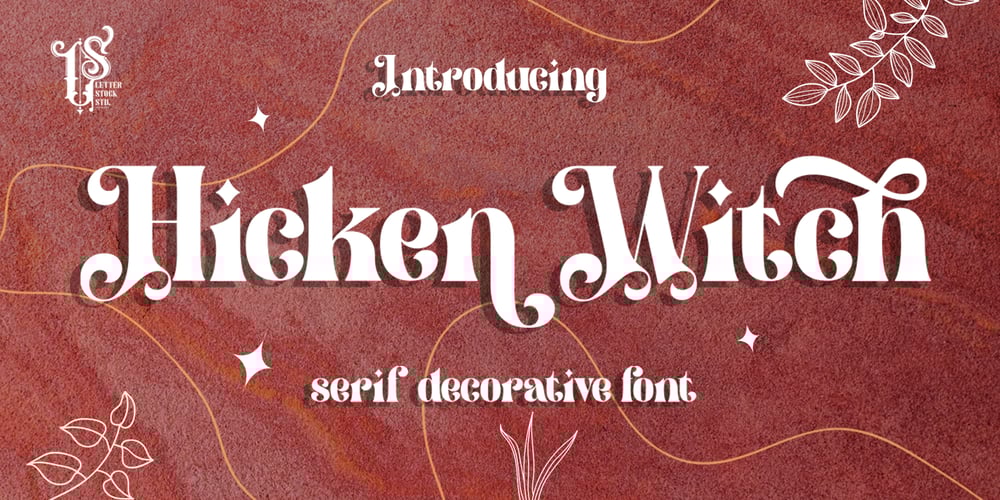
Hickenwitch Font Family was designed by Studio LetterStock and published by LetterStock. Hickenwitch contains 1 styles and family package options. Hicken WitchThis pair was inspired by vintage flyer that i saw few weeks ago, it was crafted by hand specially to add natural handmade feeling in its brand identity than i make it clean with pentool.Opentype featuresHicken Witch font has 209 character set included.This font is very good for design logo, labels, packaging product, invitations, advertising and others. This font will make your design authentic, unique and good looking with modern calligraphy style.If you’re looking for unique serif decorative font, this item is a great choice to make your design looks great and unique.This fonts works with following languages:Afrikaans, Albanian, Asu, Basque, Bemba, Bena, Chiga, Cornish, Danish, English, Estonian, Filipino, Finnish, French, Friulian, Galician, German, Gusii, Indonesian, Irish, Italian, Kabuverdianu, Kalenjin, Kinyarwanda, Low German, Luo, Luxembourgish, Luyia, Machame, Makhuwa-Meetto, Makonde, Malagasy, Malay, Manx, Morisyen, North Ndebele, Norwegian Bokmål, Norwegian Nynorsk, Nyankole, Oromo, Portuguese, Romansh, Rombo, Rundi, Rwa, Samburu, Sango, Sangu, Scottish Gaelic, Sena, Shambala, Shona, Soga, Somali, Spanish, Swahili, Swedish, Swiss German, Taita, Teso, Vunjo, ZuluThank you for using this font.LS